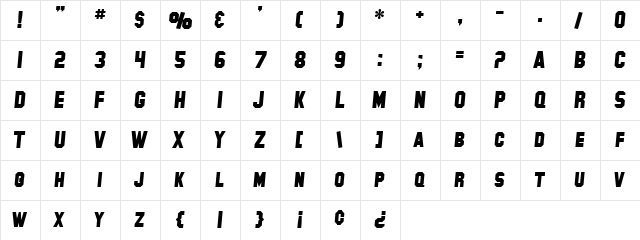
SF Collegiate Solid Bold Italic Font Preview
Design Context for SF Collegiate Solid Typeface
SF Collegiate Solid takes a measured approach to typography — its balanced proportions and neutral character make it a reliable workhorse for both digital and print work. Its italic angle brings a sense of urgency and motion to the letterforms. The heavy weight commands attention and anchors typographic hierarchies.
Pro Tip: Try SF Collegiate Solid for annotation and caption copy alongside an upright companion — the contrast in angle creates a dynamic but ordered typographic system.